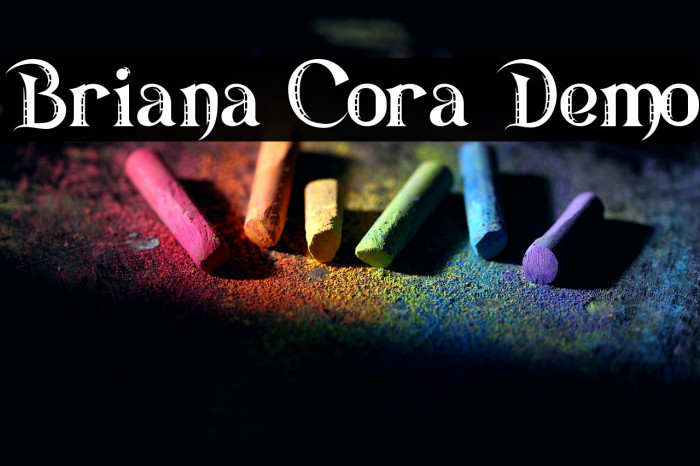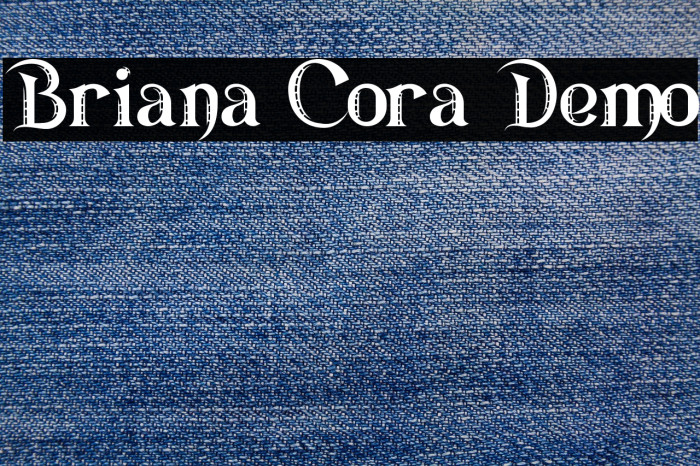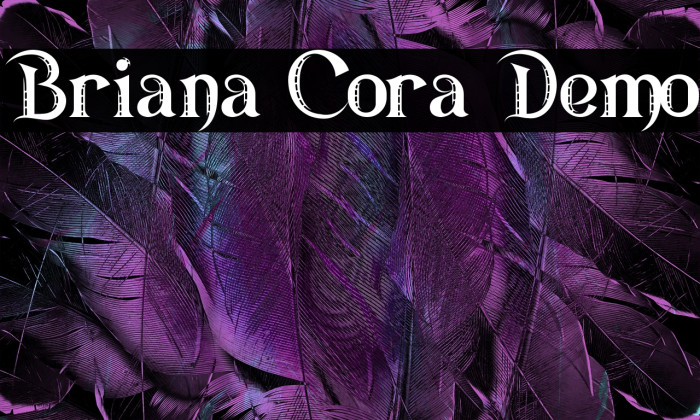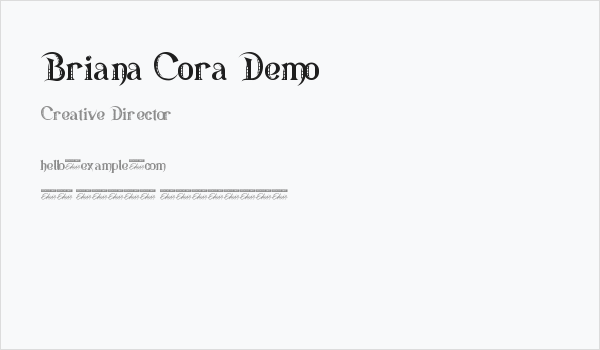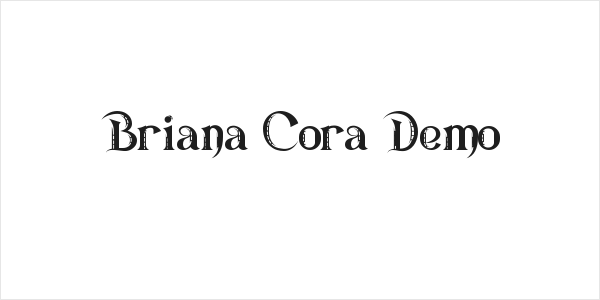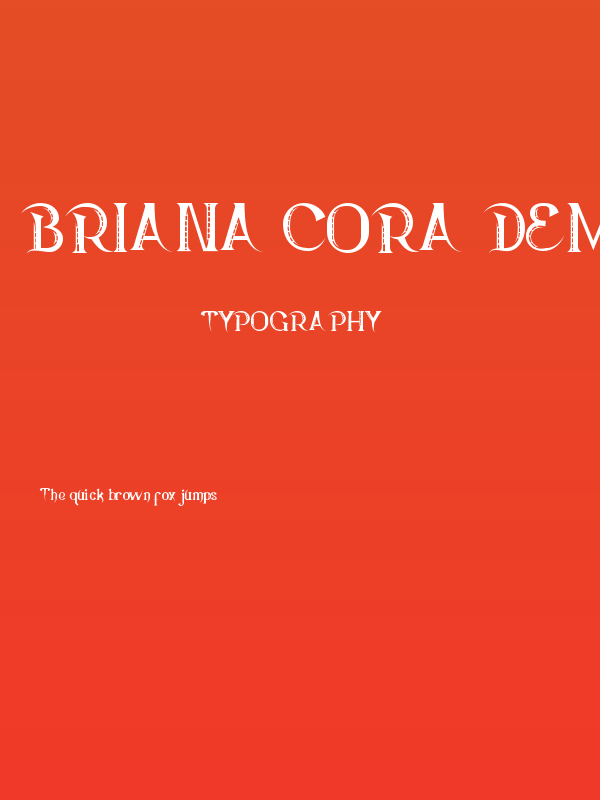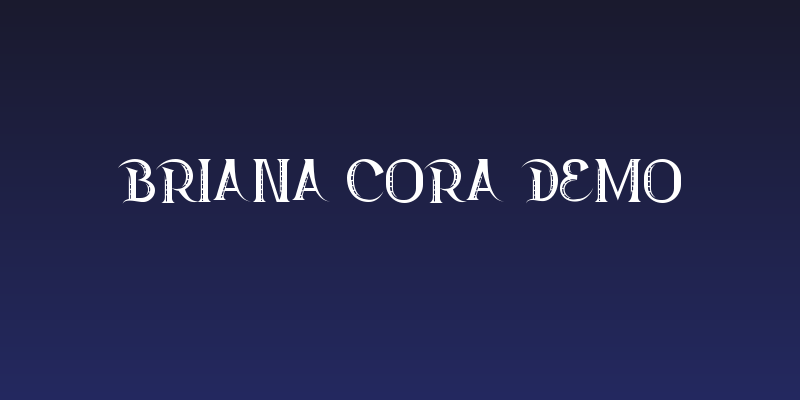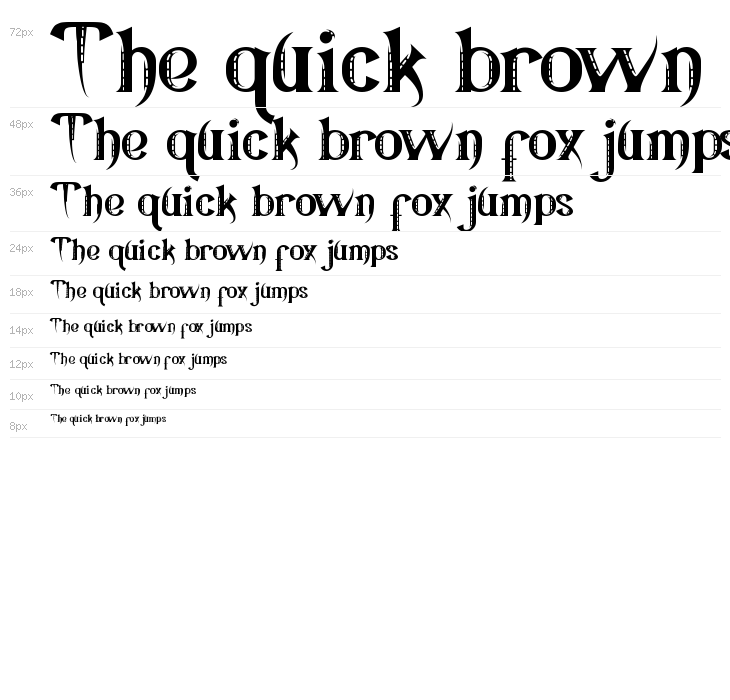
Briana Cora Demo Font
Briana Cora Demo Description
This font features a unique blend of modern and vintage styles, characterized by its decorative elements and high contrast between thick and thin strokes. The uppercase letters exhibit a bold, dramatic flair with intricate detailing, while the lowercase letters maintain a consistent style that complements the uppercase. The serifs are pronounced, adding to the font's distinctive appearance. The overall design is both elegant and eye-catching, making it suitable for creative and artistic projects. The font's playful yet sophisticated nature is enhanced by its decorative elements, which include subtle curves and embellishments.